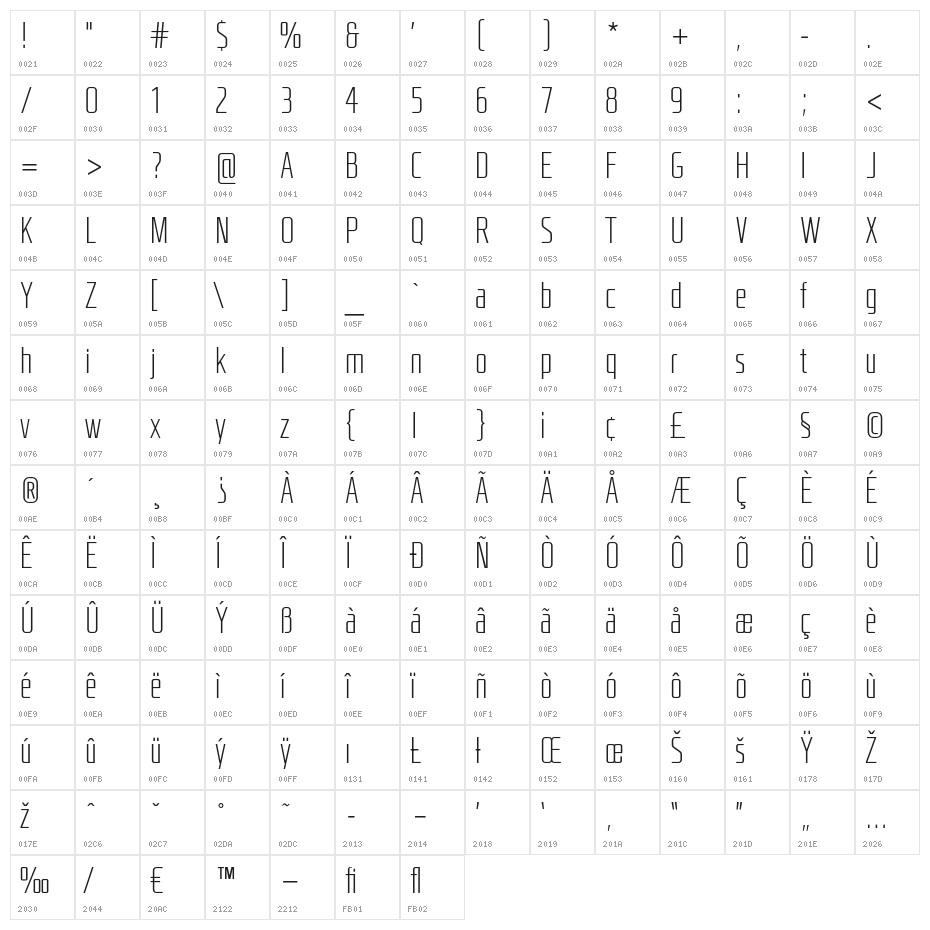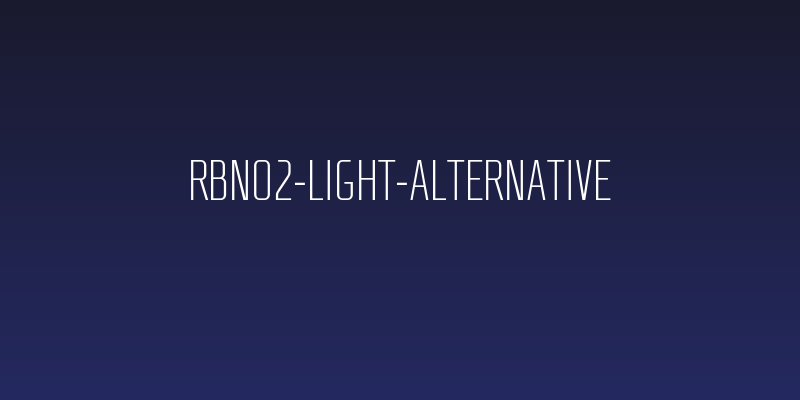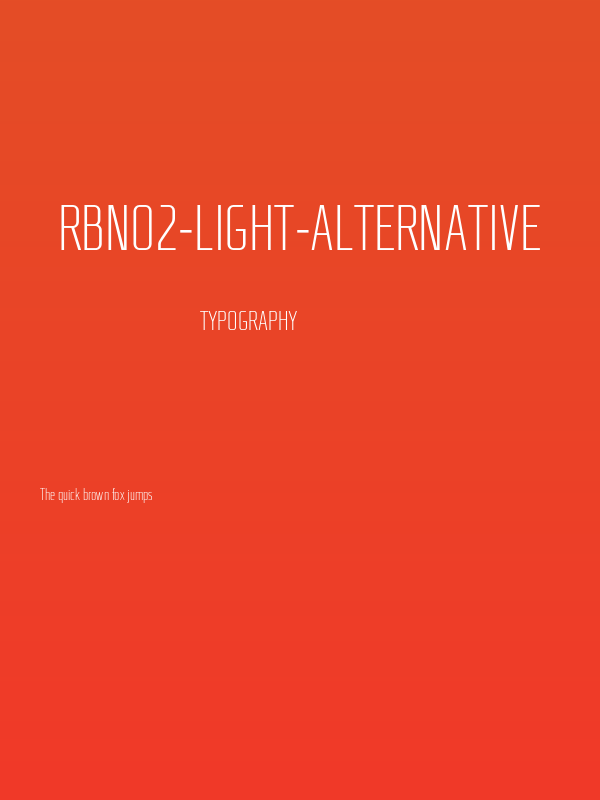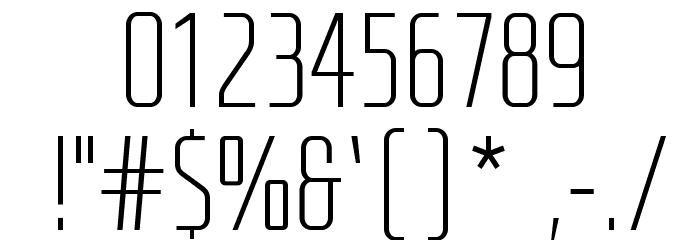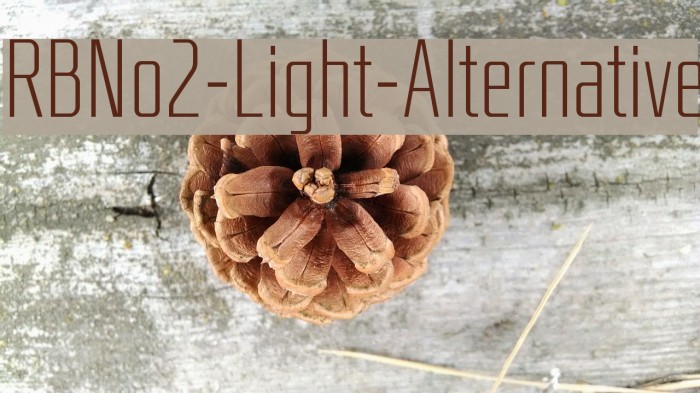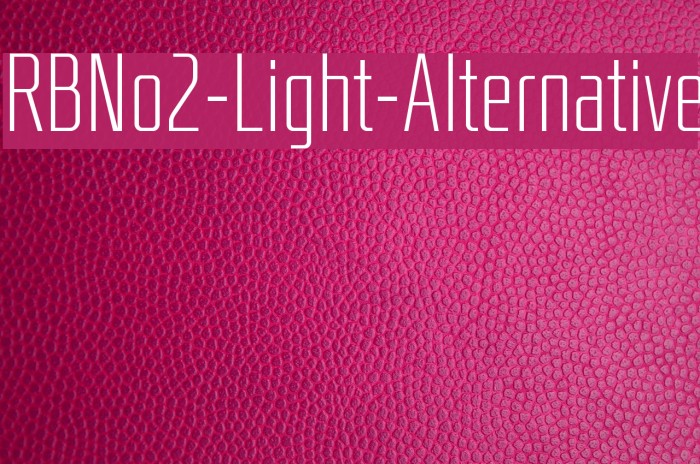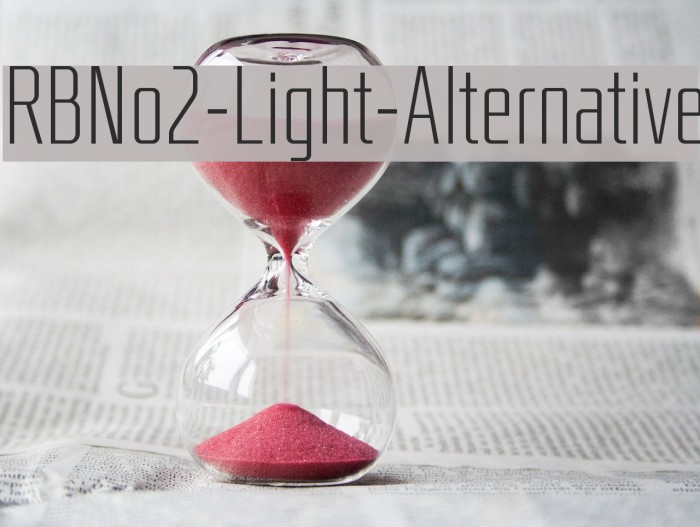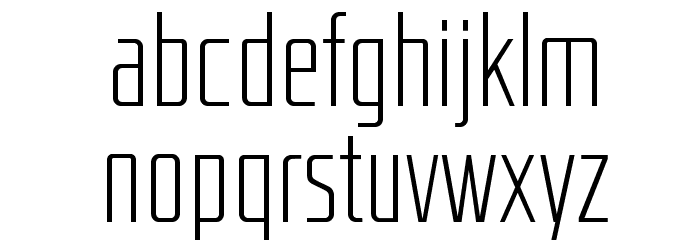
RBNo2-Light-Alternative Font
RBNo2-Light-Alternative Description
This font features a clean and modern design with a geometric structure. The characters are tall and narrow, giving it a sleek and sophisticated appearance. The strokes are consistent in width, contributing to a uniform and harmonious look. The uppercase letters are slightly taller than the lowercase, maintaining a balanced proportion. The numerals and special characters are designed to match the overall style, ensuring readability and aesthetic appeal. This font is versatile, suitable for various design applications where a contemporary and minimalist look is desired.
| Proposed Projects | Ideal for branding, editorial design, web design, and advertising where a modern and clean aesthetic is required. |